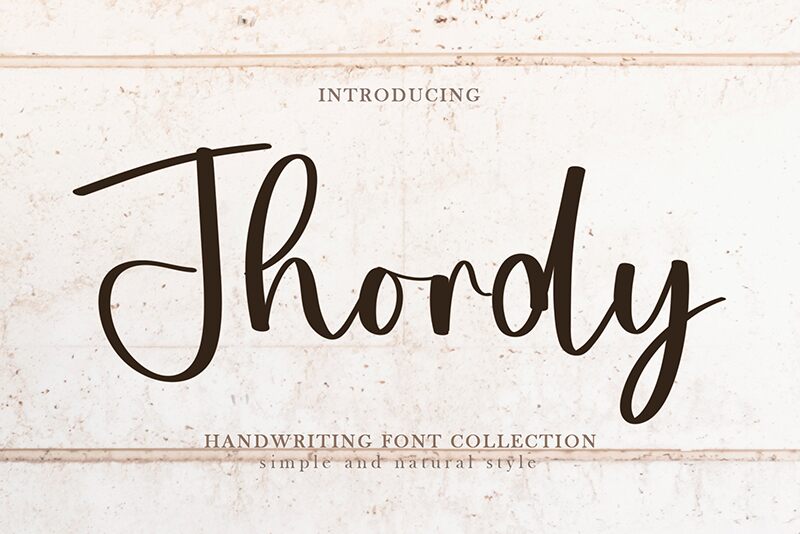
Jhordy font designed by creatype designer is a free handwritten font created naturally using a brush pen. This gives its letters a matching imperfect size and fluctuating baseline. Letters connect beautifully from one to another with gorgeous endings decorated with smooth curvy swashes. All text font case letters are tremendously simplified along with all the cases available. The font reads easily while its modern approach gives it great versatility.
This is a font style that might fit endless cases and use. Branding design, packaging product design, or even a simple invitation card could gain value with Jhordy. Websites, blogs, and social media can as well benefit tremendously from this lovely font look. Perhaps a poster, a movie cover, or a book cover could also adopt it beautifully.
This font retains a classy calligraphic influence while feeling contemporary and fresh. Its versatility makes it suitable for a wide range of creative projects, including letterheads, titles, and stationery.